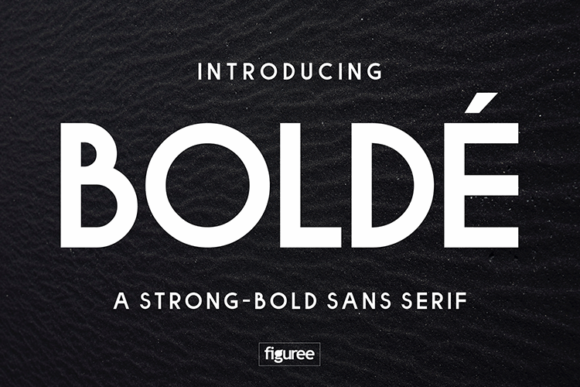
The Perfect Match for Your Creative Vision
Have you ever stared at a blank canvas, trying to bring your latest design idea to life, but struggling to find the right font to tie everything together? That’s exactly what happened to me, until I discovered the Bolde Font family.
The Bolde Font is a powerful sans serif font that exudes modernity and sophistication. Its unique blend of hard lines and smooth curves creates a dynamic presence that can elevate even the simplest designs to new heights. Whether you’re a seasoned designer or just starting out, this font family is an invaluable asset that can help bring your creative vision to life.
With the Bolde Font, you’ll be able to add a touch of sophistication and elegance to your designs, making it a valuable addition to any designer’s toolkit.
Bold Font Key Features
- Font Family: Bold Font is a sans-serif font family, designed for readability and versatility.
- Character Set: Supports a wide range of characters, including Latin, Cyrillic, and Greek alphabets, making it suitable for multilingual designs.
- Unique Characteristics: Bold Font features a distinctive, modern design with clean lines, geometric shapes, and a bold weight, making it ideal for headlines, titles, and emphasis.
Bolde Font Review
I recently had the chance to work with Bolde Font, and I have mixed feelings about it. While it has some great qualities, it also has some limitations that might make it less suitable for certain projects.
- Unique Personality**: Bolde Font has a distinct and bold personality that can add a touch of sophistication to any design.
- High-Quality Rasterization**: The font rasterizes well at different sizes and resolutions, making it suitable for various design applications.
- Good Legibility**: Bolde Font is easy to read, even at small sizes, which is essential for headings and titles.
- Limited Font Styles**: Bolde Font only comes in a few styles, which might limit its versatility and flexibility in design projects.
- Not Suitable for Body Text**: Due to its bold nature, Bolde Font might not be the best choice for body text, as it can be overwhelming and difficult to read.
- No Comprehensive Language Support**: Bolde Font may not support all languages, which could be a concern for designers working on international projects.
Bolde Font is a solid choice for designers looking for a bold and sophisticated font. However, its limitations, particularly the limited font styles and lack of comprehensive language support, might make it less suitable for certain projects. I would recommend using Bolde Font for headings, titles, and other design elements where its unique personality can shine, but it might not be the best choice for body text or international projects.
Use the Bold Font to draw attention to important text, such as headings, titles, or calls-to-action. It’s also great for creating emphasis in body text or highlighting key information. Experiment with different font sizes and colors to create a visually appealing design.
Alternatives to Bolde Font
Montserrat is a sans-serif font that originated from a sign in Buenos Aires. It’s ideal for use in digital design, particularly in headings and titles due to its clean and modern look.
Montserrat is similar to Bolde Font in its sans-serif style, but it has a more minimalist and geometric feel. It’s also more versatile and can be used in a wide range of contexts, from body text to headings.
Inter is a modern sans-serif font designed by Rasmus Andersson. It’s a highly versatile font that can be used for both body text and headings, and it’s particularly well-suited for digital design.